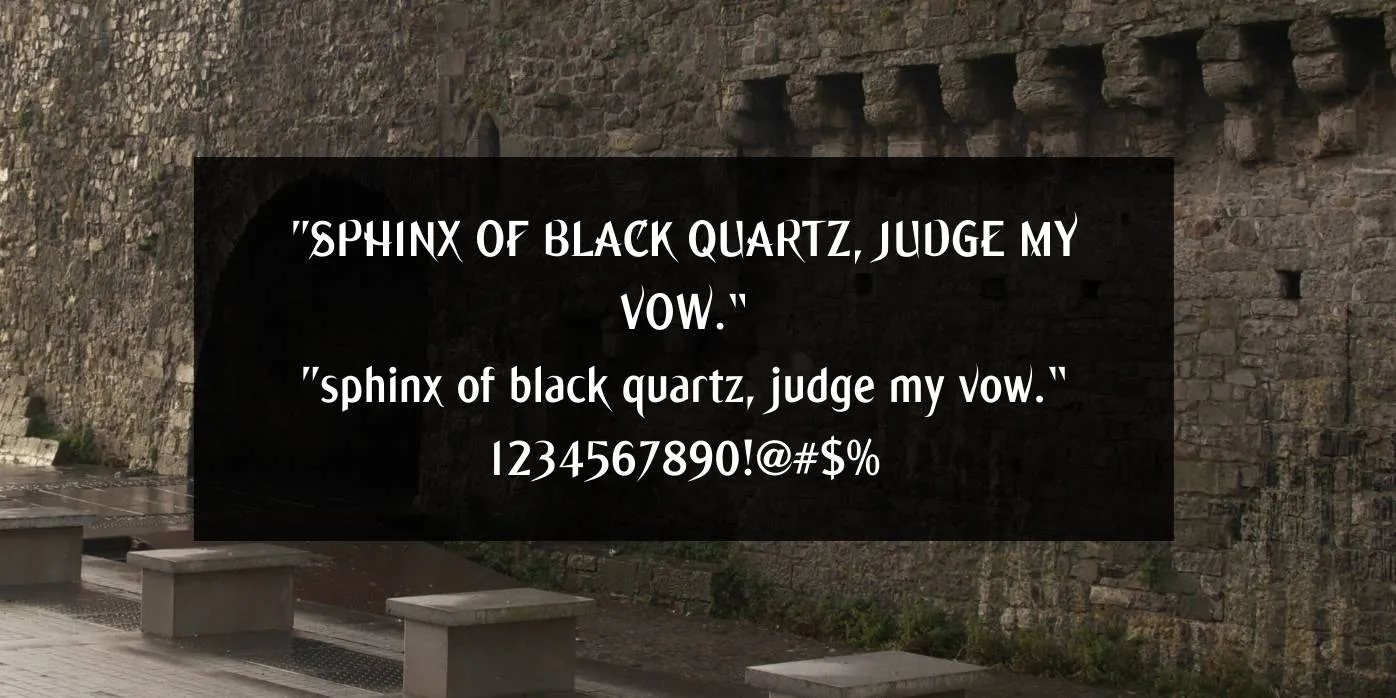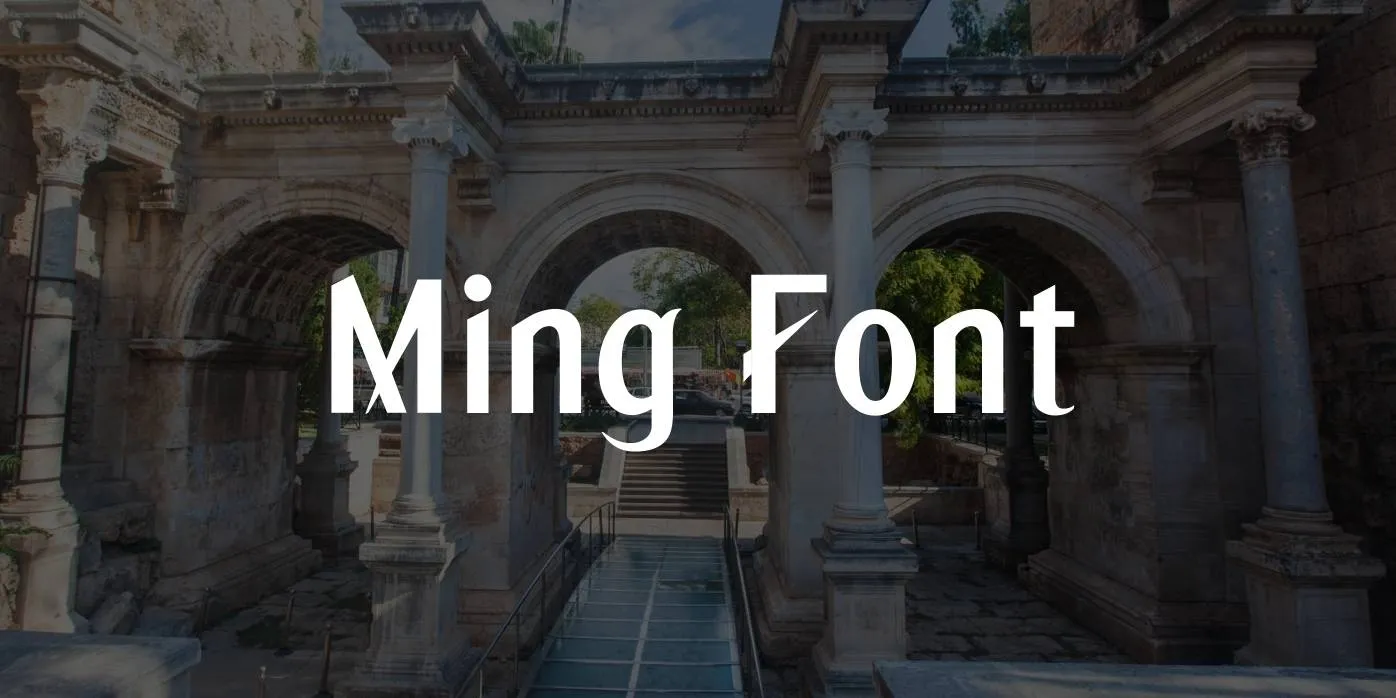
Ming Font
Ming Font has massive fame in the designs market. It belongs to the fancy font family. The designer of this typeface was a K-type foundry. This classy font was created on 12 May 2004.
It is well specified for the CSS Family. This staggering font is a stylish fancy font with a modern touch. This typeface has six styles and was published by K-type. Some of its styles are bold, black, regular, and so on.
Its sharp prints and legible texture offer a clear and striking look to the design. This font is perfect for creating headlines, posters, cards, logos, and much more. Ming Font supports extended Latin characters. You need to download this attractive font family from our website easily.